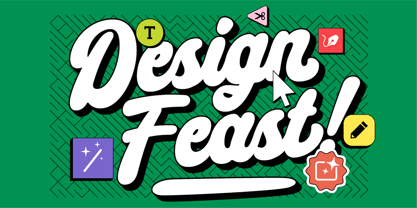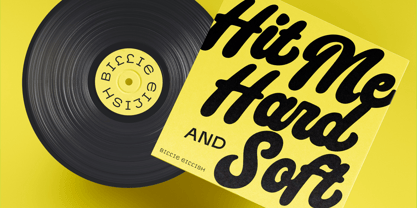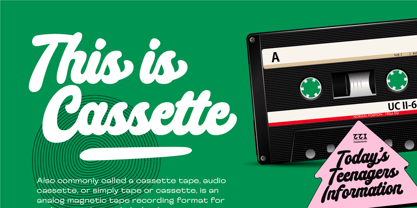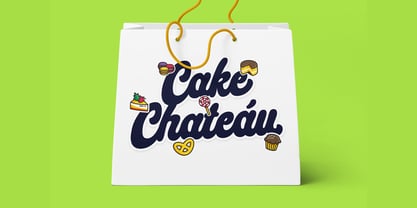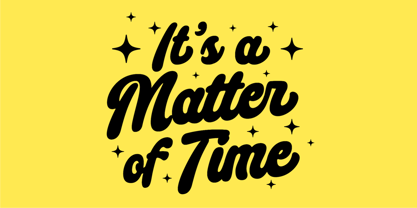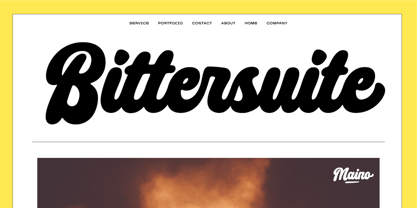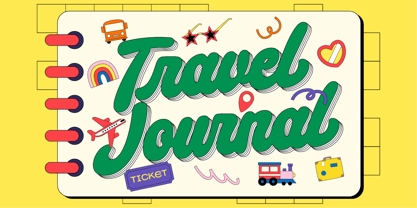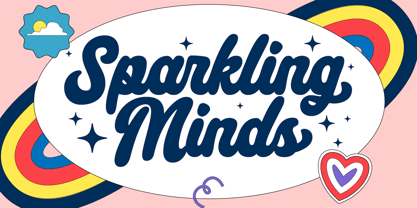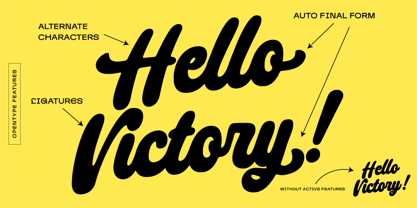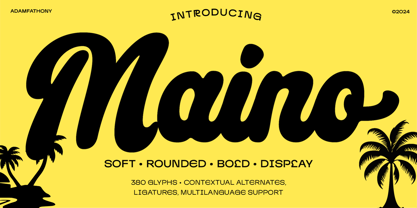
Maino Script
by Adam Fathony
The Maino Script Font Family was designed by Adam Fathoni Haris and published by Adam Fathony. Maino Script contains 1 styles. More about this family
Introducing Maino, where script elegance meets playful charm. This font exudes a delightful blend of softness and boldness, with rounded edges that add a touch of whimsy to any design. Its flawless curves and casual strokes make Maino both inviting and versatile, perfect for projects that demand a cute and approachable vibe. Crafted with creativity in mind, Maino comes fully equipped with OpenType features such as contextual alternates, ligatures, and a variety of alternate characters. This ensures seamless transitions and a natural flow of text, enhancing its handwritten appeal. Whether you're designing for invitations, branding, or social media, Maino supports multilingual characters, making it a global choice for spreading joy through typography. Embrace the charm and versatility of Maino, where every curve tells a story and every letter invites a smile. Ideal for creators who seek to infuse their projects with a touch of personality and effortless elegance.